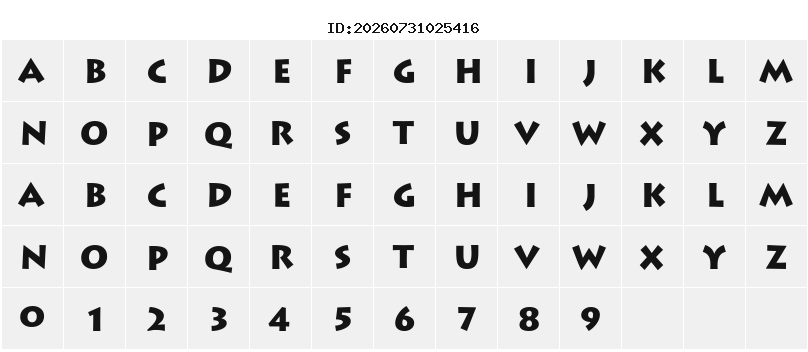
• Font Name: LitschiLarge
• Full Font Name: LitschiLarge Normal
About LitschiLarge.ttf
LitschiLarge.ttf is a modern, elegant sans-serif font designed for ultimate readability and visual harmony. Perfect for branding, headlines, web design, and print materials.